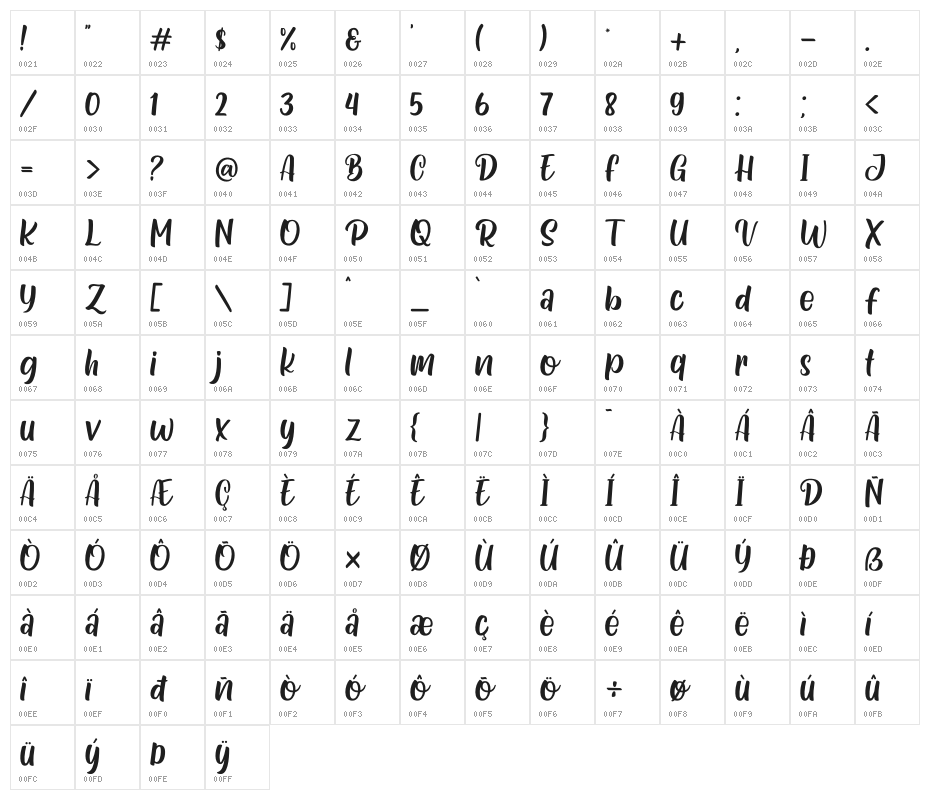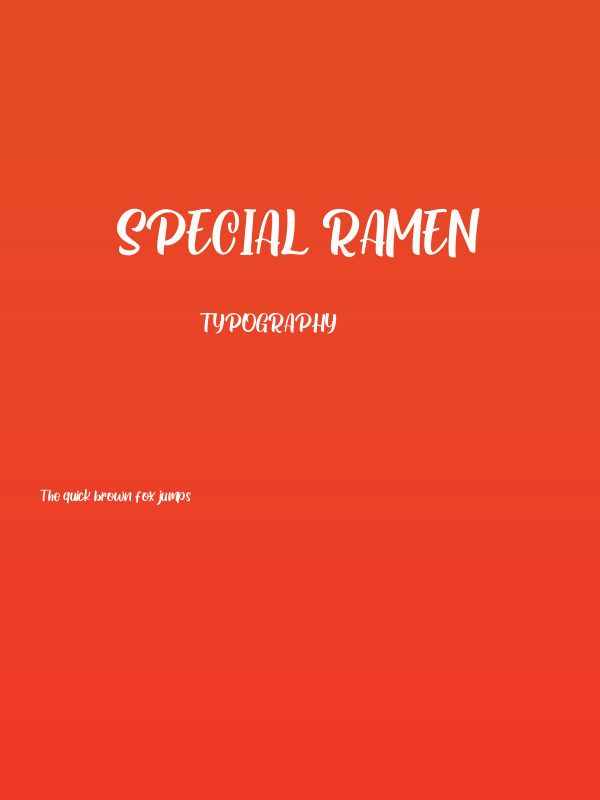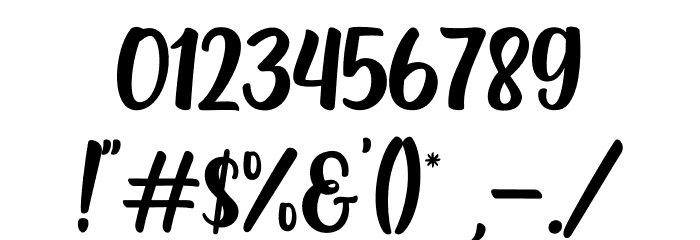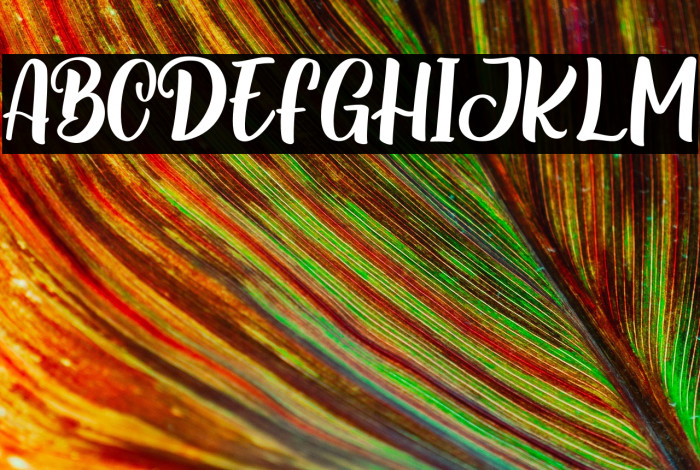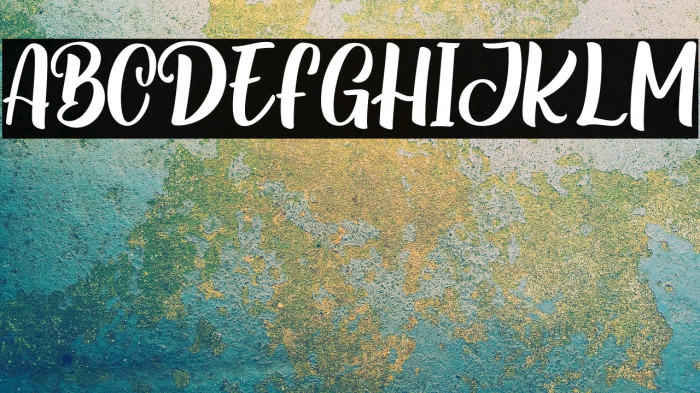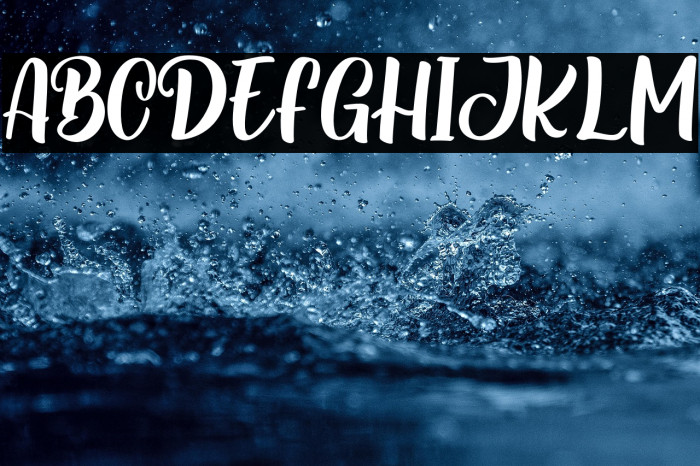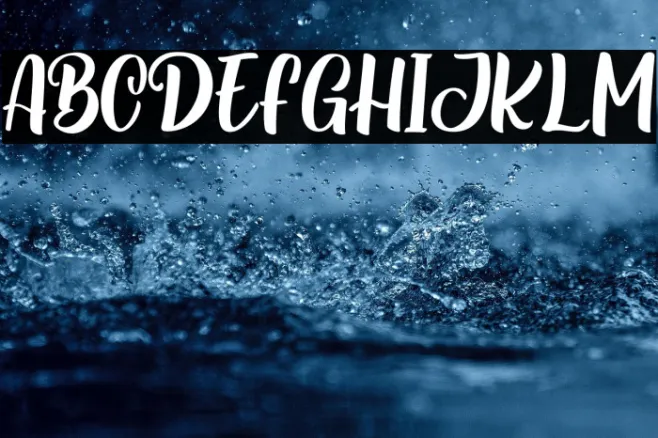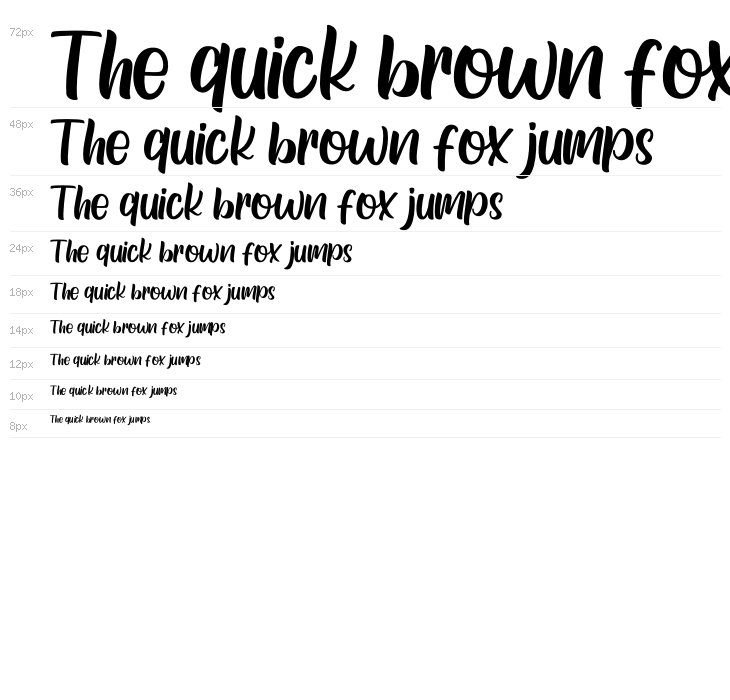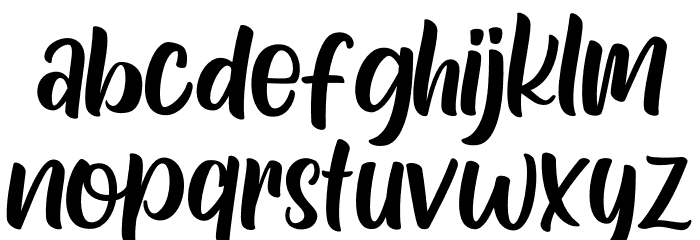
Special Ramen Font
Special Ramen Description
This font features a bold and expressive handwritten style, characterized by its fluid and dynamic strokes. The uppercase letters exhibit a playful yet sophisticated flair, with varying stroke widths that add a sense of movement and energy. The lowercase letters maintain this lively aesthetic, with smooth curves and a slightly slanted orientation that enhances its casual appeal. Numbers and special characters are crafted with the same attention to detail, ensuring consistency throughout. This font's unique personality makes it ideal for projects that require a touch of creativity and individuality.
| Proposed Projects | Ideal for branding, packaging, invitations, and social media graphics where a personal touch is desired. |